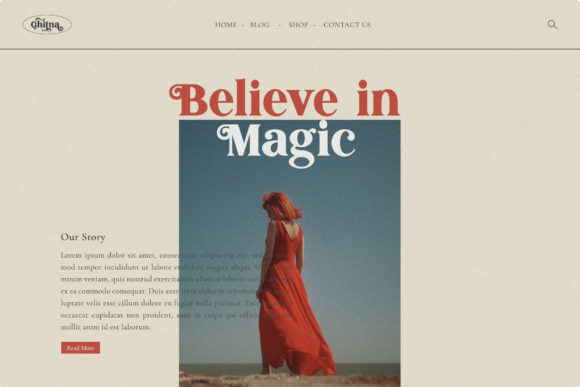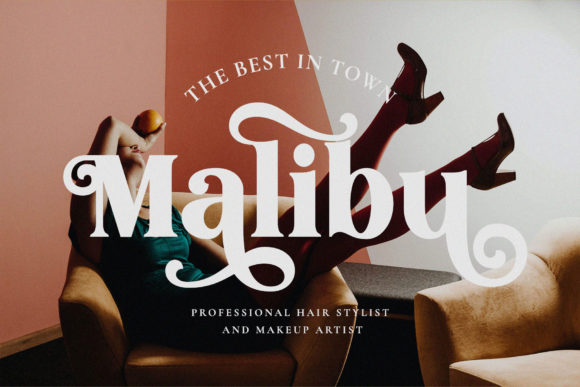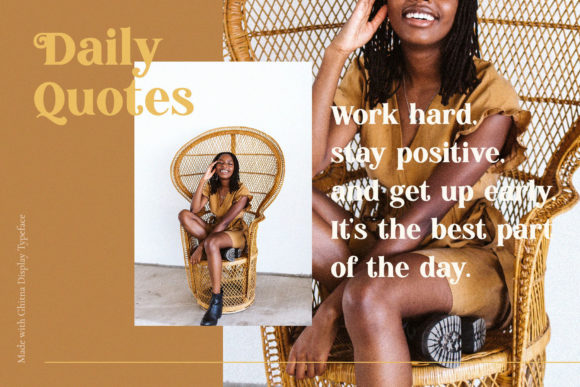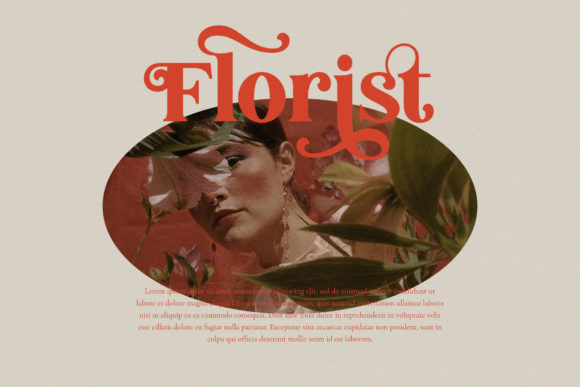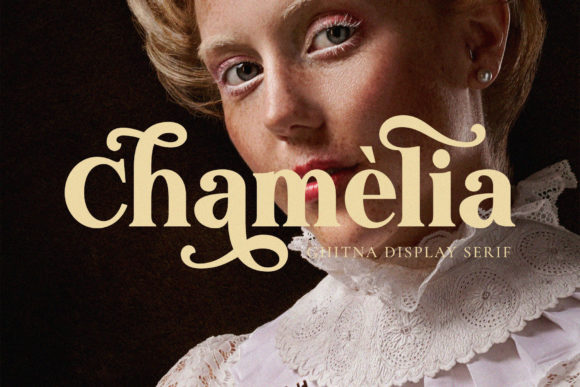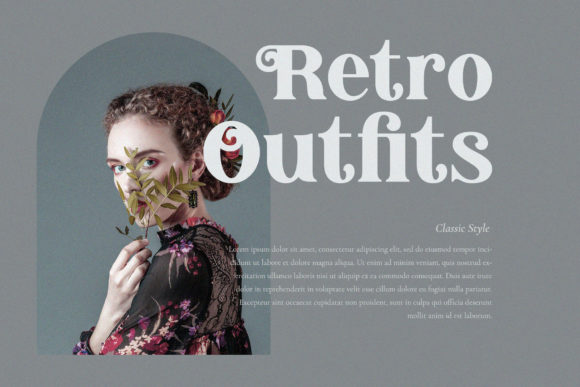
Introducing Ghitna Font: Elevate Your Crafting Ideas with Style
Are you a designer, crafter, or DIY enthusiast looking for a font that can add a touch of elegance and sophistication to your projects? Look no further than Ghitna Font, a trendy, bold, and highly detailed serif font that’s perfect for a wide range of crafting ideas.
What Makes Ghitna Font Special?
Ghitna Font is a versatile and stylish font that’s designed to elevate your crafting ideas, from cards and invitations to branding, labels, and more. Its bold and highly detailed serif design makes it perfect for projects that require a touch of luxury and sophistication.
Key Features of Ghitna Font
- Trendy and Bold Design: Ghitna Font features a modern and bold design that’s perfect for making a statement.
- Highly Detailed Serif: The font’s highly detailed serif design adds a touch of elegance and sophistication to any project.
- PUA Encoded: Ghitna Font is PUA encoded, which means you can access all of the glyphs and swashes with ease.
- Wide Range of Uses: From cards and invitations to branding, labels, and more, Ghitna Font is perfect for a wide range of crafting ideas.
How Ghitna Font Can Elevate Your Crafting Ideas
Ghitna Font can add a touch of style and sophistication to any crafting project. Here are a few ways you can use Ghitna Font to elevate your crafting ideas:
- Cards and Invitations: Use Ghitna Font to create beautiful and elegant cards and invitations for special occasions.
- Branding and Packaging: Ghitna Font is perfect for branding and packaging projects that require a touch of luxury and sophistication.
- Labels and Tags: Use Ghitna Font to create stylish and elegant labels and tags for your crafting projects.
- DIY Projects: Ghitna Font is perfect for a wide range of DIY projects, from home decor to fashion accessories.
Tips for Using Ghitna Font
Here are a few tips for using Ghitna Font in your crafting projects:
- Experiment with Different Sizes: Ghitna Font looks great in a variety of sizes, from small and delicate to large and bold.
- Pair with Other Fonts: Try pairing Ghitna Font with other fonts to create a unique and stylish look.
- Use the Glyphs and Swashes: Take advantage of Ghitna Font’s PUA encoding to access all of the glyphs and swashes and add extra flair to your projects.
Ghitna Font is a versatile and stylish font that’s perfect for designers, crafters, and DIY enthusiasts looking to add a touch of elegance and sophistication to their projects. With its bold and highly detailed serif design, PUA encoding, and wide range of uses, Ghitna Font is a must-have for anyone looking to elevate their crafting ideas.